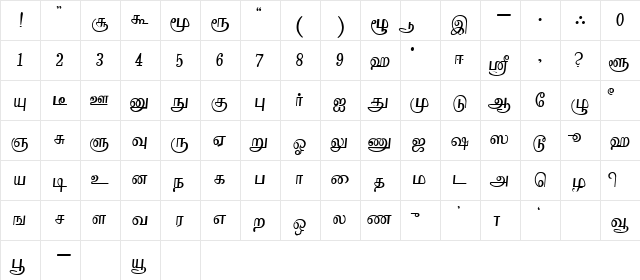
Boopalam Regular Font Preview
Boopalam Regular
Boopalam Regular Font Details
Design Context for Boopalam Typeface
Boopalam is a composed and adaptable typeface that performs quietly and consistently across a wide range of design contexts.
Pro Tip: Pair Boopalam with a font of contrasting weight or personality to build a more expressive typographic hierarchy.